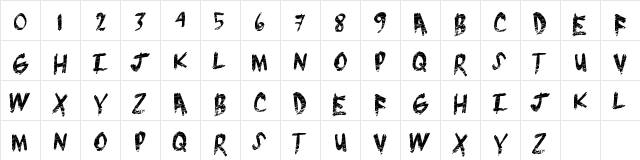
BrushGrunge Regular
Design Context for BrushGrunge Typeface
BrushGrunge trades polish for personality, using distressed and eroded forms to bring grit and attitude to creative work.
A strong fit for alternative music projects, graffiti-adjacent design, and anything that deliberately resists polish.
Pro Tip: Use BrushGrunge at larger sizes where the texture and irregularity of each letterform can be clearly seen — it loses its character at small sizes.